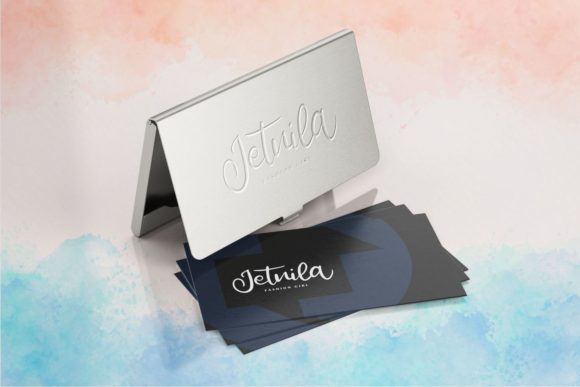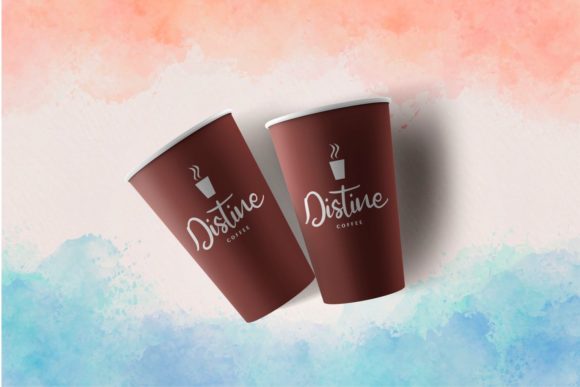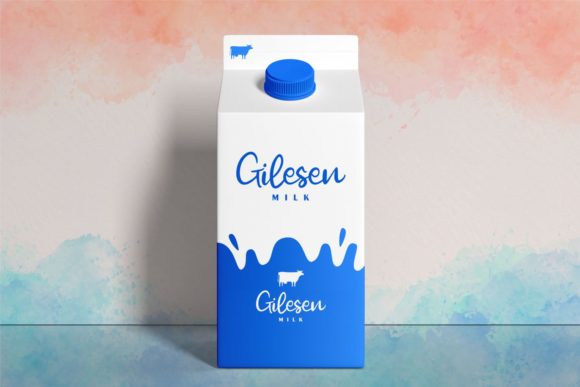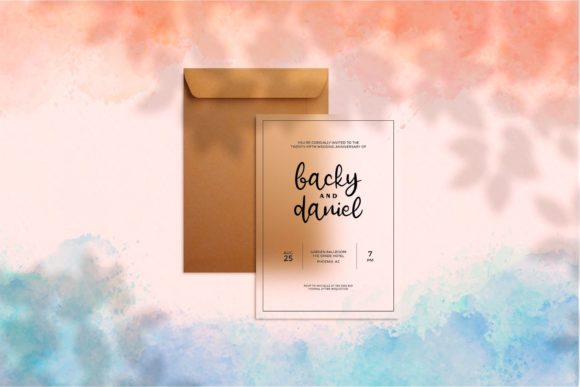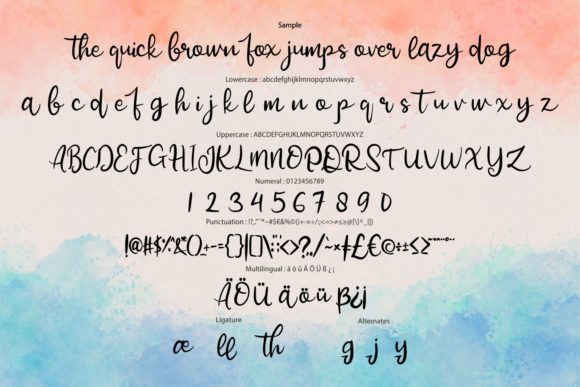
Introduction to Risheil Font
Imagine you’re sitting at your desk, staring at a blank canvas, trying to bring your creative vision to life. You’ve got a design project that requires the perfect font to convey the right emotions, but nothing seems to fit quite right. Then, like a breath of fresh air, you stumble upon the Risheil Font – a beautiful, handwritten masterpiece that instantly sparks joy and creativity.
With its distinctive, rounded lettering and sweet style, the Risheil Font is a true gem for designers. Its incredibly versatile design makes it perfect for a wide range of creative projects, from elegant invitations to playful advertisements. Whether you’re working on a free download or a high-quality design resource, this font is sure to elevate your work to the next level.
As a valuable design resource, the Risheil Font offers a transparent background that allows you to customize it to your heart’s content, making it an ideal choice for designers looking to add a personal touch to their projects. So, get ready to fall in love with the Risheil Font and discover a new world of design possibilities!
Key Features of Risheil Font
- High-quality design resource ideal for creative projects, offering a unique and elegant style.
- Includes a range of characters, including uppercase and lowercase letters, numbers, and special symbols, making it a comprehensive design resource.
- Designed with precision and attention to detail, ensuring crisp and clear text at resolutions up to 300 DPI.
- Suitable for a wide range of creative projects, from branding and advertising to digital art and publishing.
Honest Review: Risheil Font
I recently stumbled upon the Risheil Font, a free download that I was excited to test for my next creative project. As a designer, I’m always on the lookout for high-quality design resources that can elevate my work.
- ✨ Unique and modern design aesthetic that can add a touch of sophistication to any project.
- ✨ Clear and transparent background, making it easy to layer with other design elements.
- ✨ Comes in a range of weights and styles, providing versatility for different design applications.
- ⚠️ Limited character set support, which may not be ideal for longer text-based projects.
- ⚠️ Not suitable for small font sizes, as the design may become distorted.
Overall, I was impressed with the Risheil Font’s potential, but I would recommend it for smaller-scale design projects or as a complement to other fonts. With a bit more development, I think this font could be a top contender in the design community.
Common Use Cases for Risheil Font
The Risheil Font is a versatile design resource that can be used in a variety of creative projects, including business cards, brochures, and social media graphics. Its clean and modern look makes it perfect for any project that requires a professional and transparent design.